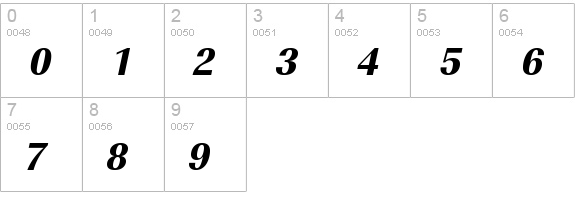
URWImperialTOTExtBolNar Oblique is a distinctive, italic variant in the URWImperialTOTExtBolNar typeface family \xE2\x80\x94 well suited to design and typography projects.
URWImperialTOTExtBolNar Oblique font is a bold and dynamic typeface that exudes strength and sophistication. With its unique oblique design, this font adds a touch of modernity to any project it is used for. The sharp angles and sleek curves of URWImperialTOTExtBolNar Oblique make it a versatile choice for titles, headers, and branding materials. What sets URWImperialTOTExtBolNar Oblique font apart is not only its striking appearance but also the fact that it is available for free download at FontsMarket.com. This means that designers and creatives can easily access this premium font without any cost, making it a valuable addition to any font library. Whether you're working on a poster, logo, website design, or any other creative project, URWImperialTOTExtBolNar Oblique font is sure to make a bold statement. Download it for free today and elevate your designs with this stunning typeface.